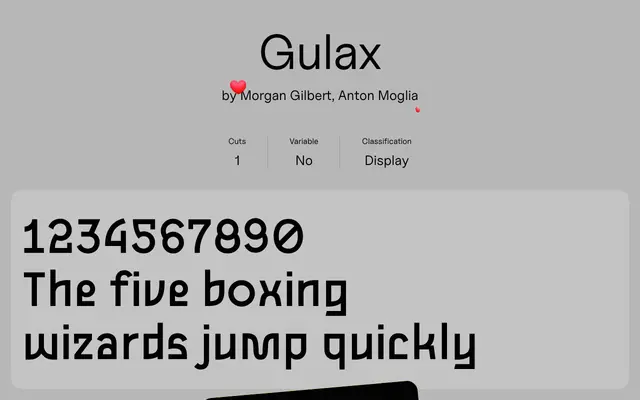
Gulax
A single-cut display typeface by Morgan Gilbert and Anton Moglia, released under the SIL Open Font License for free commercial and personal use.
A display face offered in one cut, with no variable axis or italic companion. Released under the SIL Open Font License 1.1, it permits commercial use, modification and redistribution with conditions. Suited to headline and decorative applications where a single expressive weight is sufficient.
Classified as Display by the foundry; no further subclassification is given, and the single cut suggests a decorative or expressive face rather than a text typeface.